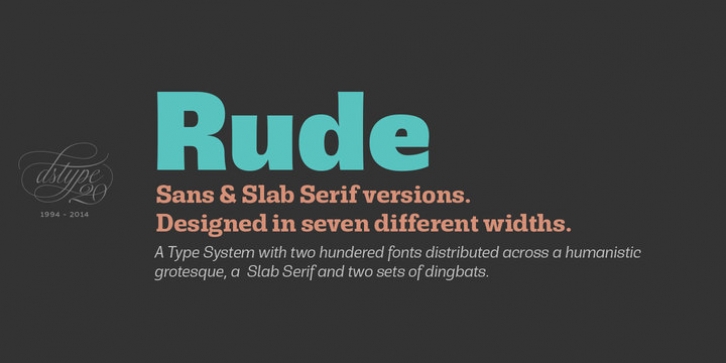
Rude ExtraCondensed was designed by Pedro Leal and published by DSType. Rude ExtraCondensed contains 14 styles and family package options.
Rude was designed as a dichotomy between the Grotesque and Humanistic typographic shapes: a no-nonsense Sans and a very muscular Slab Serif companion. Showing the historically demanded consistency for such kind of typefaces, this is one of DSType's most wide-ranging and flexible type systems, introducing seven weights across seven widths, from Thin to Black and ExtraCondensed to ExtraWide, along with a wonderful set of Icons.